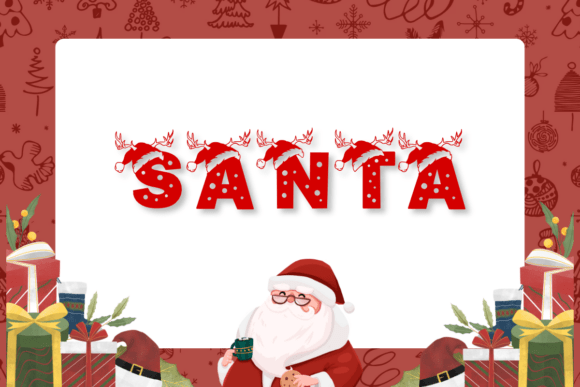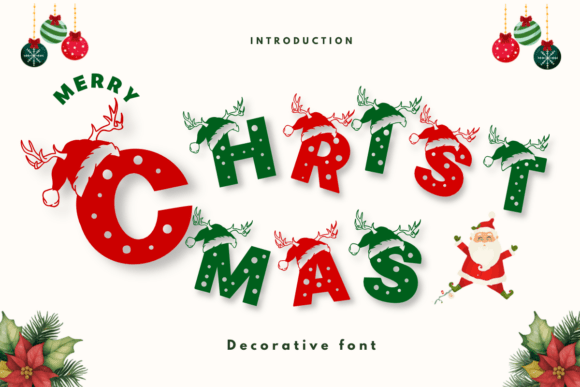
Merry Christmas 2 2 Font
The Christmas Decorative font is a playful decorative display font that captures the joyful spirit of the holiday season. Featuring bold, festive letterforms adorned with Santa hats, antlers, and snowy polka dots, this font instantly brings holiday cheer to any design. Its fun and expressive style makes it perfect for Christmas cards, party invitations, seasonal posters, packaging, and social media graphics.
With a balance of bold shapes and whimsical accents, the Christmas Decorative font stands out while maintaining readability, ensuring your holiday projects sparkle with personality and charm.